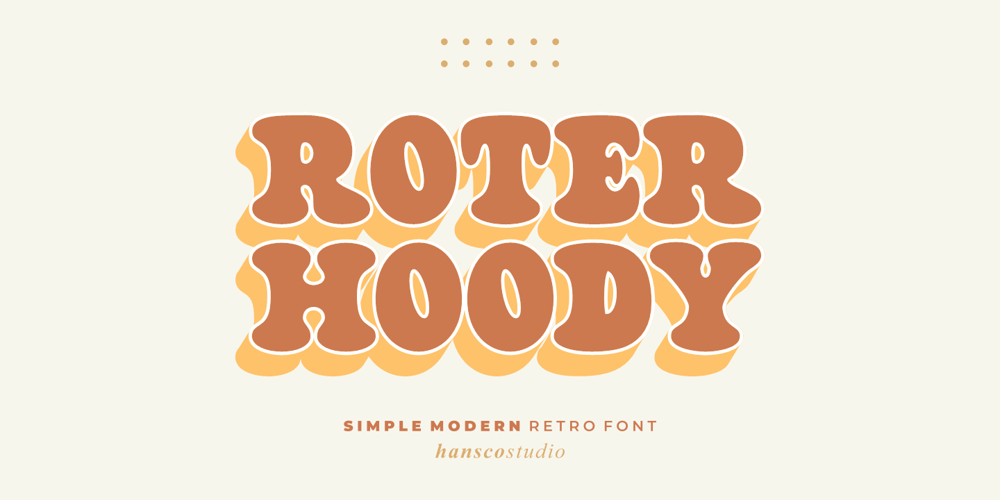
Roter Hoody
Roter Hoody font
Roter Hoody Font Family was designed by Burhan Afif and published by HansCo. Roter Hoody contains 3 styles and family package options. Roter Hoody font is a retro serif and bold display font. You will get three types of fonts in this pack, Regular, Outline and Shadow version. Use this display font to add that special retro touch to any design idea you can think of!Very suitable for logotype, Stickers, Packaging design, Cricut Project, headlines, brand identity, t shirt or apparel industry, posters, magazines, books, YouTube, Instagram, websites, or any of your creative design projects.Enjoy!